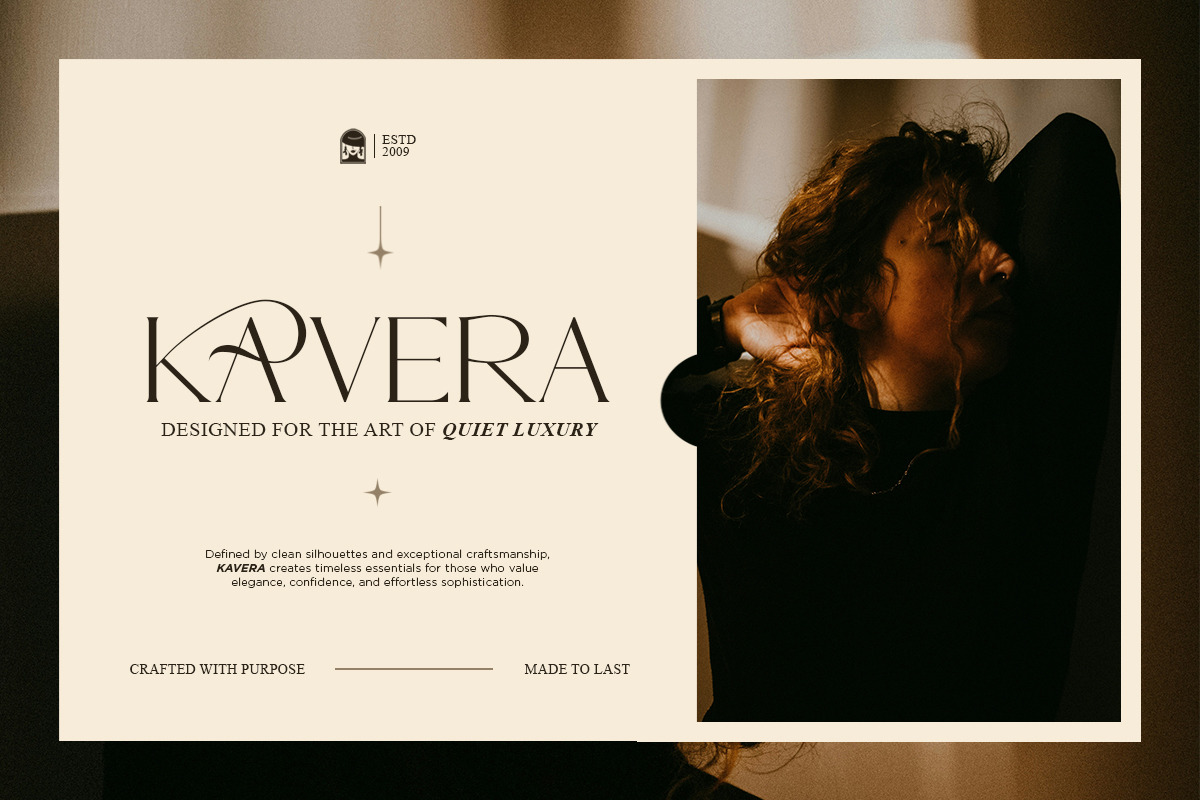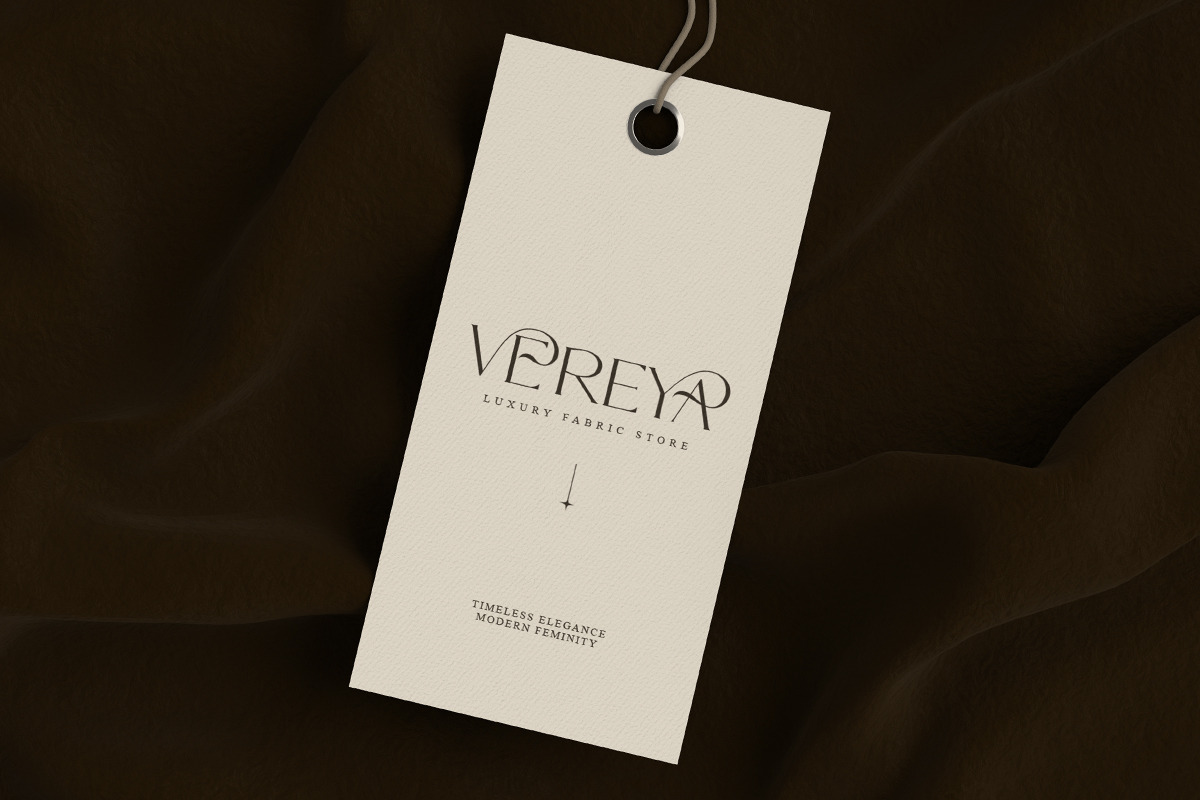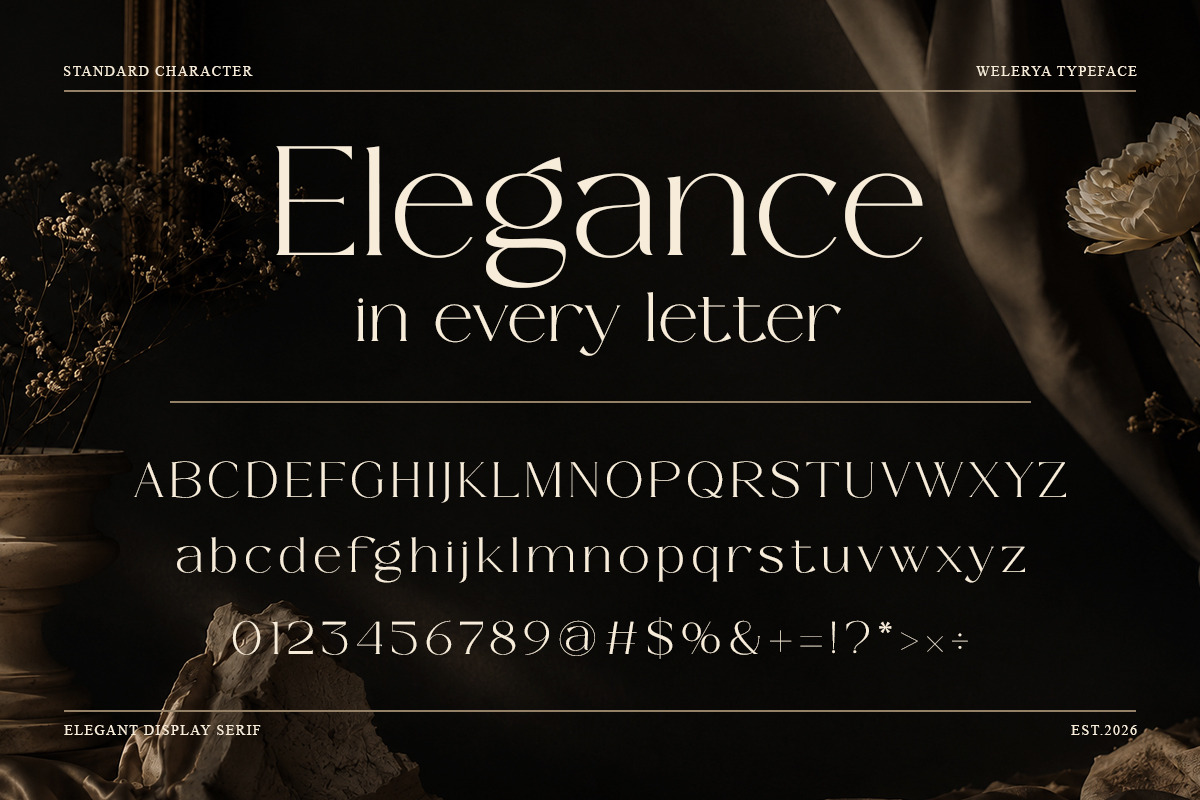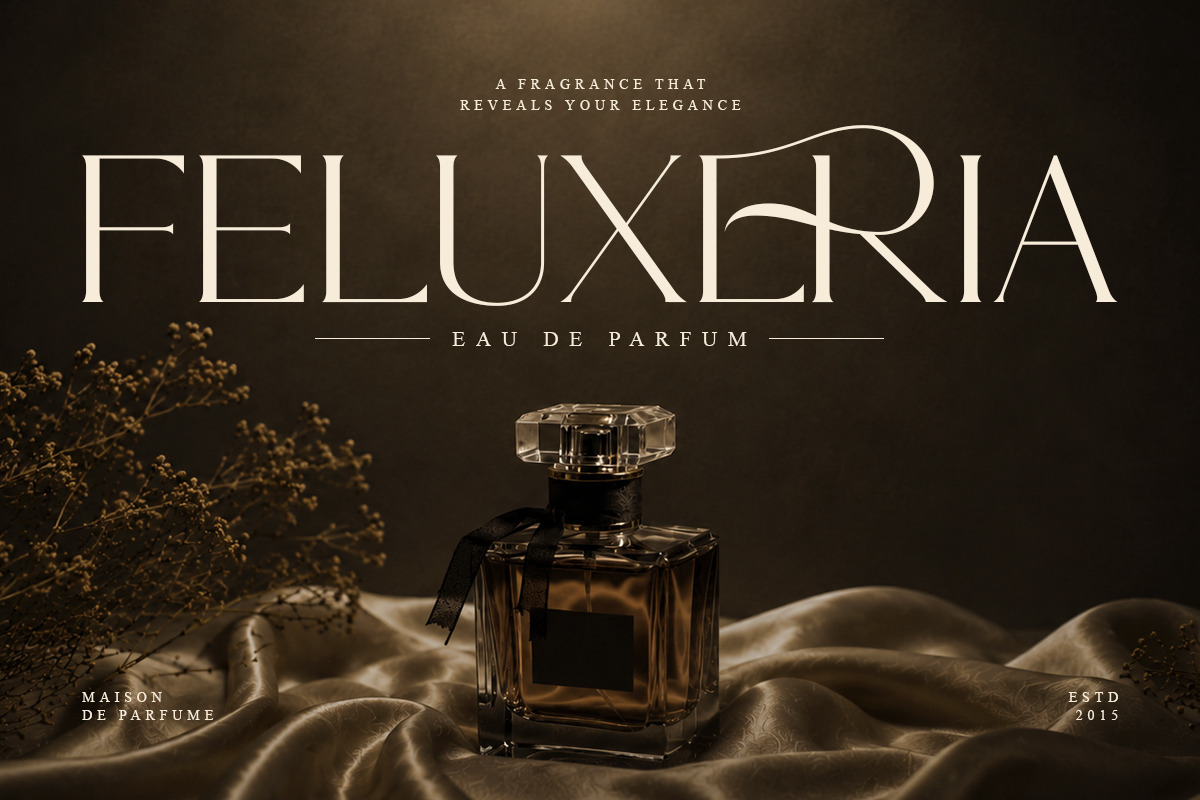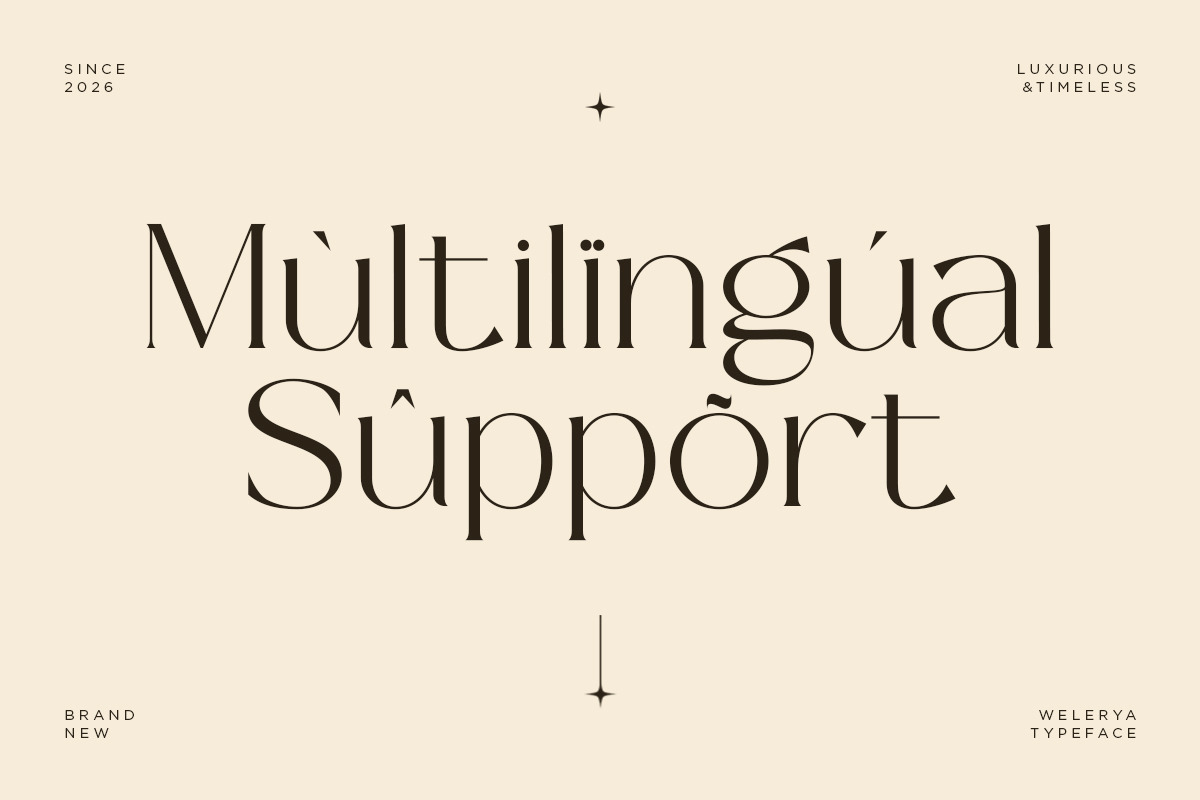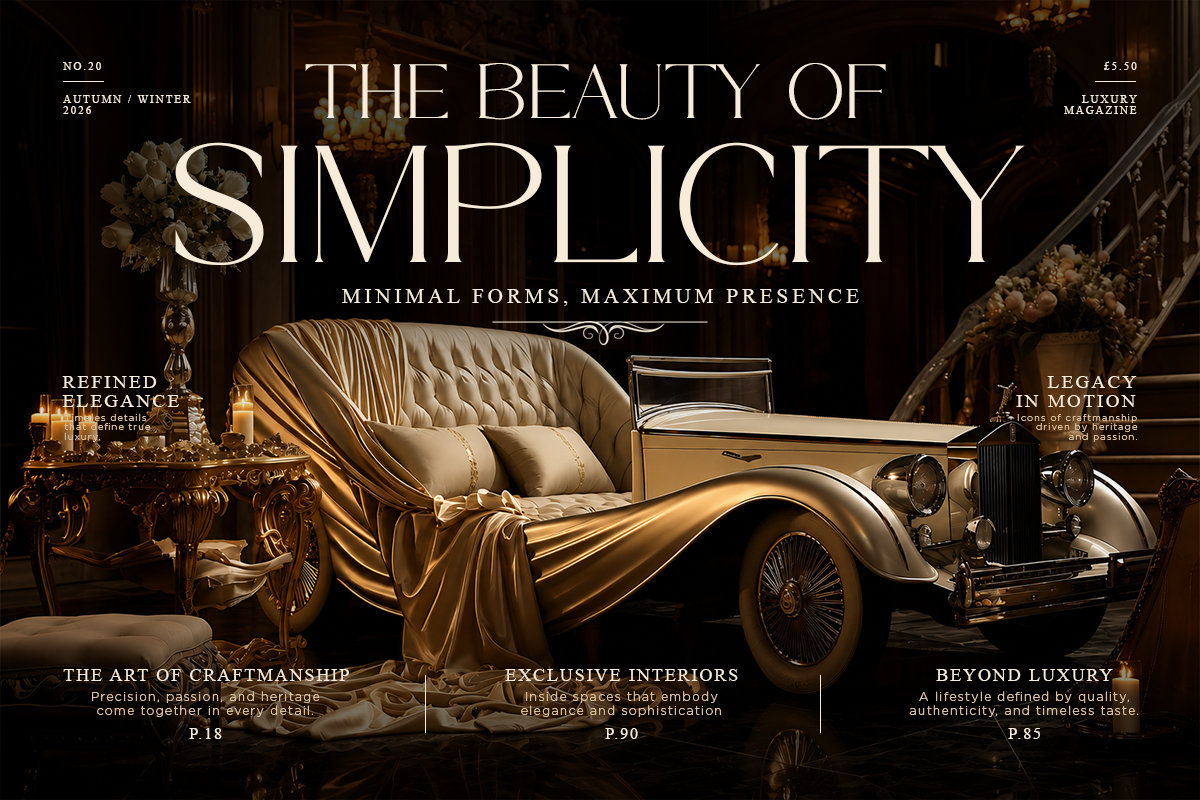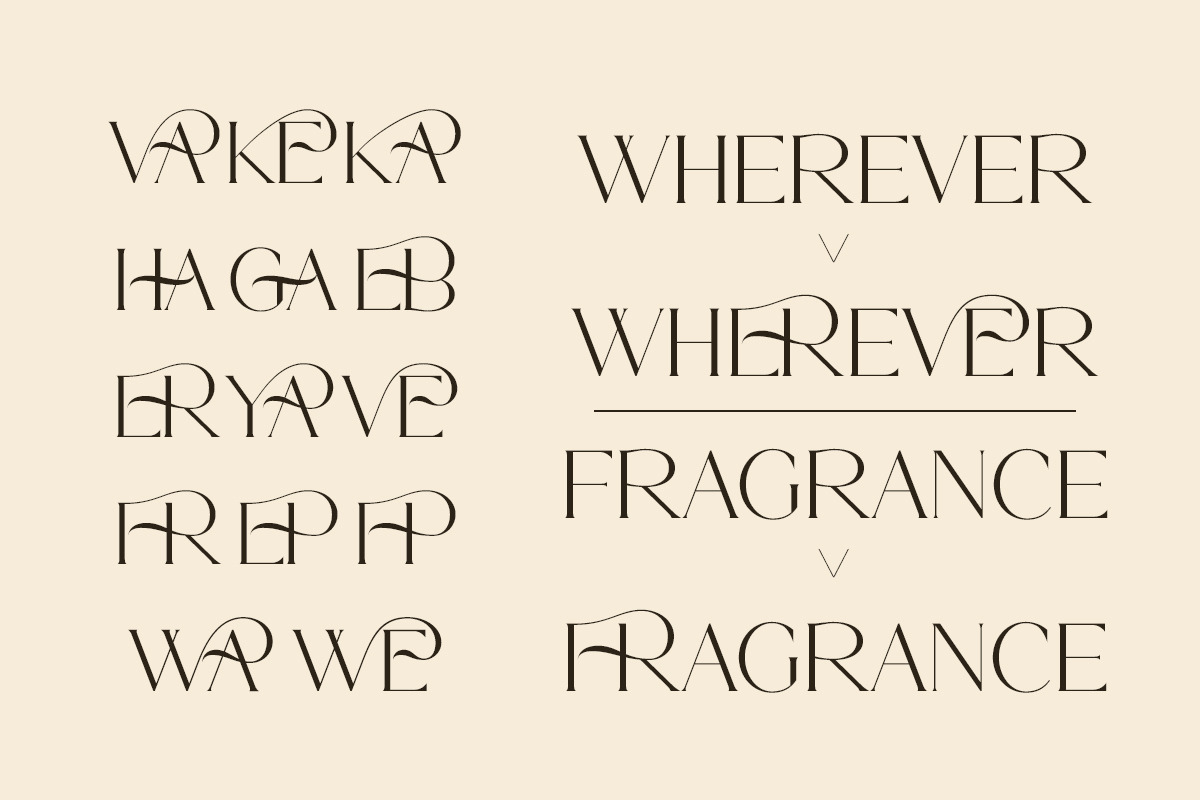
Welerya - Elegant Display Serif
Introducing Welerya the elegant, beautiful, and modern Serif. With its modern and minimalist look, Welerya brings a luxurious, classy, and clean style to your projects such as websites, modern logos, brand identities, social media quotes, wedding stationery, magazines, and more!
Welerya features unique and classy capital letters A to Z and also comes with unique ligatures making Welerya a beautiful font that can be customized for various projects and jobs you want.
Welerya is perfect for: logos, brands, wedding invitations, business cards, greeting cards, posters, magazines, social media, agenda prints, and websites.
FEATURE:
- Uppercase and lowercase letters
- Multilingual Characters